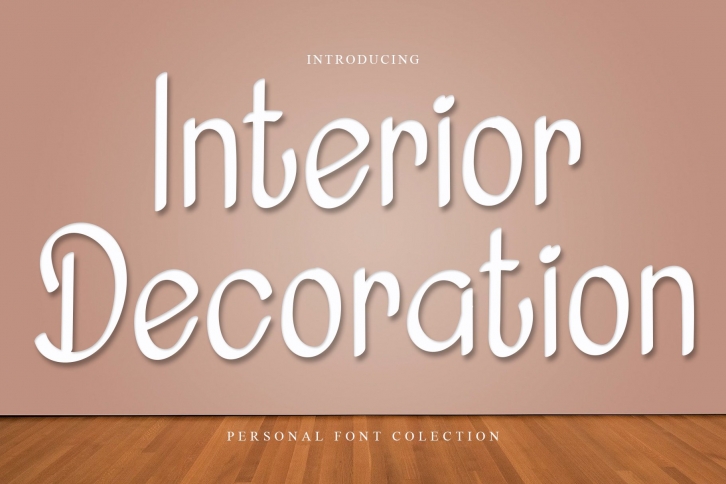
Interior Decoration is a beautiful font that was designed by Giart Studios. It's a great choice for designers and creatives who need such a font. It was released on March 6, 2022 and the file size is 9.71 MB. Interior Decoration may give a more youthful, expressive and casual look to your project. It is a very beautiful, refined, elegant, and high-quality font.